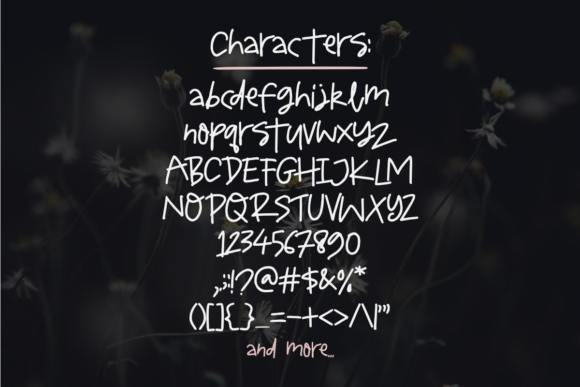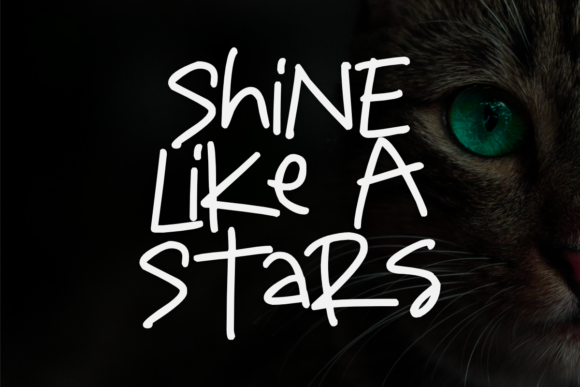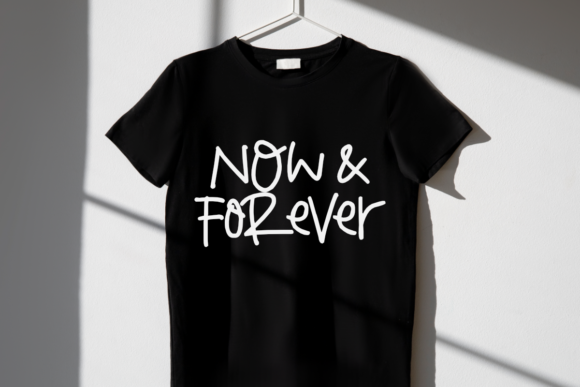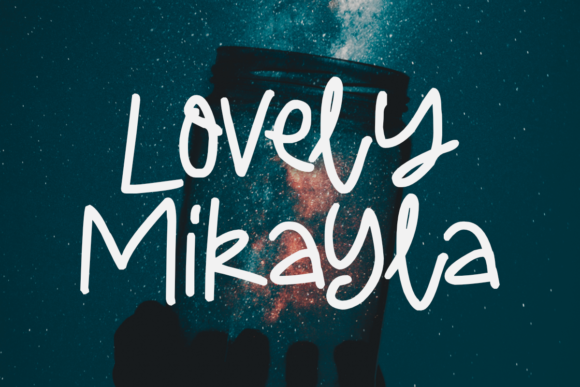
Introduction to Lovely Mikayla Font
Lovely Mikayla is a cute and bouncy handwritten font suitable for posters, quotes, apparel, and more.
It has unique and natural-looking characters that will add an authentic feel to any crafty idea .